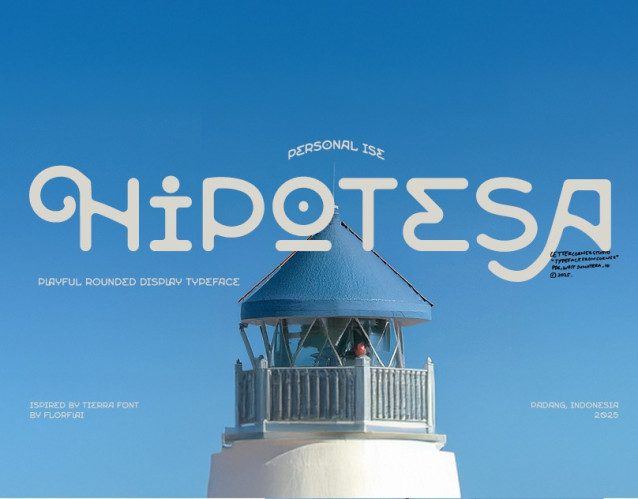
Hipotesa Display Font
Hipotesa Display Font is a playful rounded display typeface created for personal use. Inspired by the Tierra font by Florflai, it combines smooth curves and bold shapes to evoke a fun and friendly mood. Designed in Padang, Indonesia, in 2025, this typeface reflects creativity and a unique visual personality.